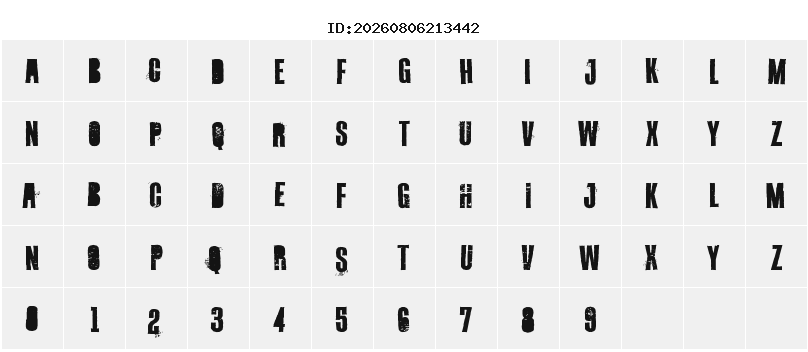
• Font Name: Octynaz
• Designer: Ray Larabie
About Octynaz.ttf
Octynaz.ttf is a modern, elegant sans-serif font designed for ultimate readability and visual harmony. Perfect for branding, headlines, web design, and print materials.